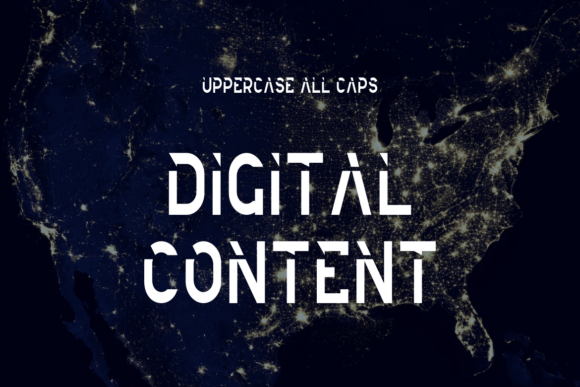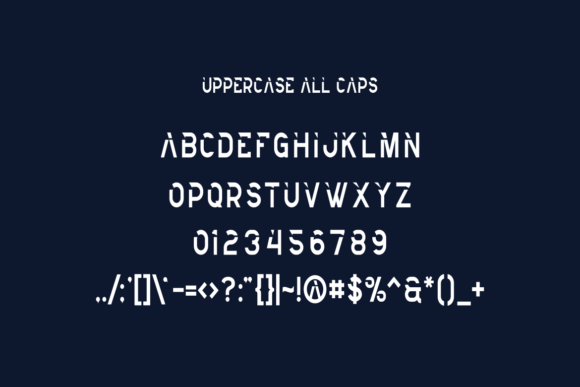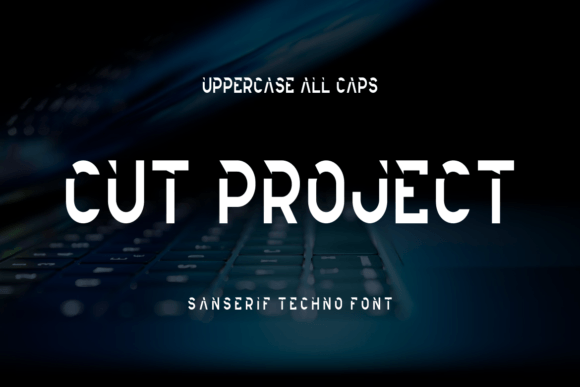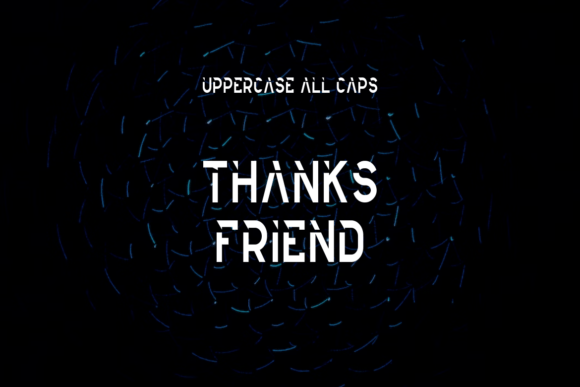
Discover the Versatility of Cutproject Font: Elevate Your Designs with a Modern Sans-Serif Marvel
In the realm of typography, fonts play a pivotal role in shaping the visual identity of a brand or project. Among the myriad of fonts available, the Cutproject Font stands out as a versatile and modern sans-serif font that has been gaining traction among designers and crafters alike. This article aims to provide an in-depth look at the Cut Project Modern Font, exploring its features, applications, and the value it brings to various branding projects.
Introduction to Cut Project Modern Font
Cut Project Modern Font is a regular and italic sans-serif font designed to cater to a wide range of creative projects. Its clean lines, modern aesthetic, and readability make it an excellent choice for designers looking to infuse their work with a contemporary feel. Whether you’re working on a logo, t-shirt printing, esport branding, or any other project that requires a distinctive yet versatile typeface, the Cutproject Font is sure to meet your needs.
Key Features of Cutproject Font
- Modern Sans-Serif Design: The font boasts a sleek, modern sans-serif design that lends itself well to both digital and print media.
- Regular and Italic Styles: Available in both regular and italic styles, the Cutproject Font offers flexibility in design, allowing for a broader range of creative expression.
- High Readability: One of the key features of this font is its high readability, making it suitable for body text as well as headlines.
- Versatility: Its neutral design ensures that it can be seamlessly integrated into various branding projects, from logos and t-shirts to esport teams and more.
Applications of Cutproject Font
The versatility of the Cutproject Font is one of its most appealing attributes. Here are some of the many ways designers and crafters can utilize this font:
- Logo Design: Create memorable and impactful logos with the Cutproject Font, perfect for startups and established brands looking to rebrand.
- T-Shirt Printing: Its clear and modern look makes it ideal for t-shirt designs, ensuring your message stands out.
- Esport Branding: For esport teams and events, the font’s sleek design can help convey a sense of professionalism and modernity.
- Digital Media: Suitable for website content, social media posts, and digital advertising, adding a professional touch to your online presence.
Why Choose Cutproject Font?
Choosing the right font for your project can be daunting, but here are a few reasons why Cutproject Font should be at the top of your list:
- Universal Appeal: Its modern design has a universal appeal, making it suitable for a wide audience.
- Easy to Read: The font’s readability ensures that your message is conveyed effectively, whether in print or digital formats.
- Customizable: With both regular and italic styles, you have ample opportunities to experiment with different looks to best suit your project.
The Cutproject Font is a powerful tool in the world of design, offering a perfect blend of modernity, versatility, and readability. Whether you’re a professional designer working on a client’s branding project or a crafter looking for the perfect font for your DIY endeavor, the Cut Project Modern Font is an excellent choice. Its suitability for a wide range of applications, from logos and t-shirts to esport branding, makes it a valuable asset in your typography arsenal. Embrace the potential of the Cutproject Font and elevate your designs to new heights of creativity and professionalism.